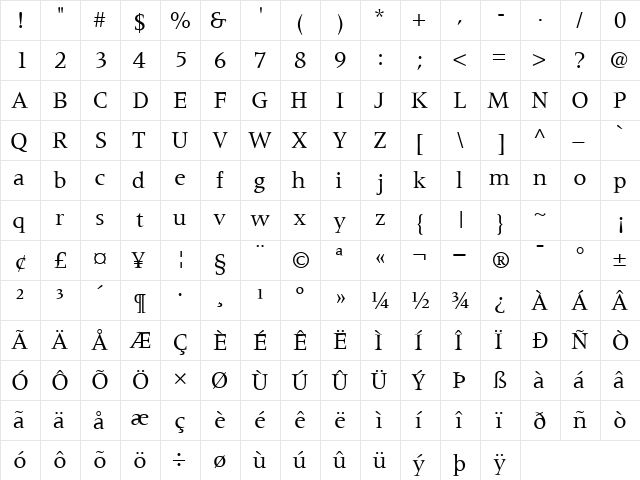
CoherentSSK Regular
Design Context for CoherentSSK Typeface
CoherentSSK takes a measured approach to typography — its balanced proportions and neutral character make it a reliable workhorse for both digital and print work.